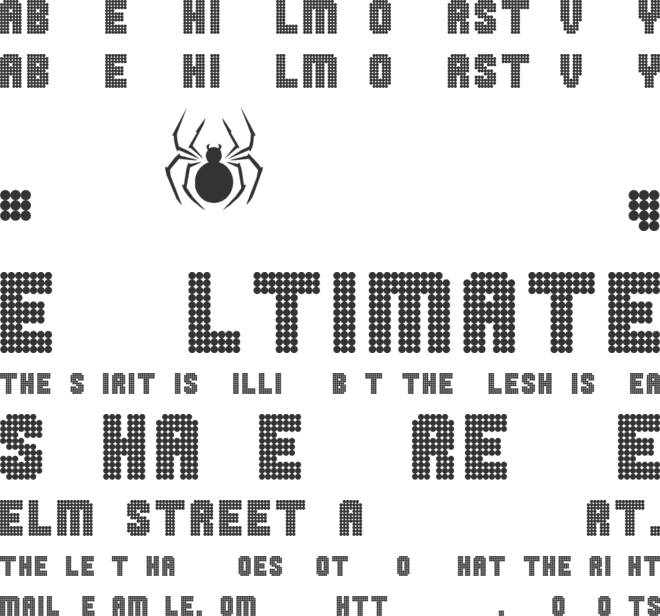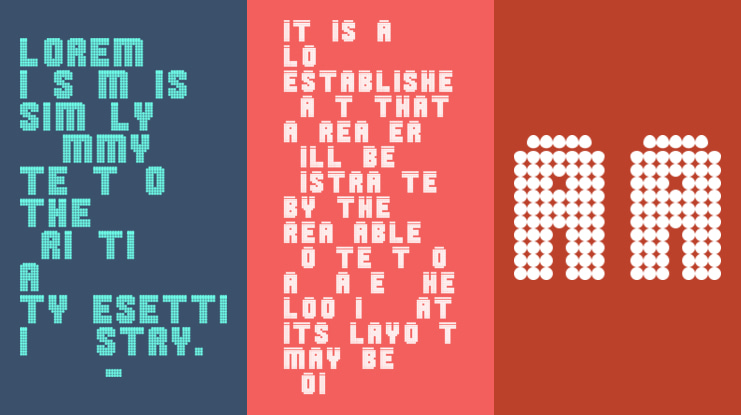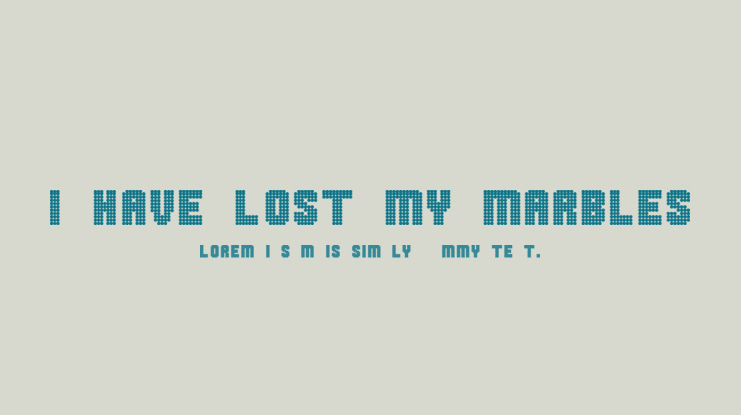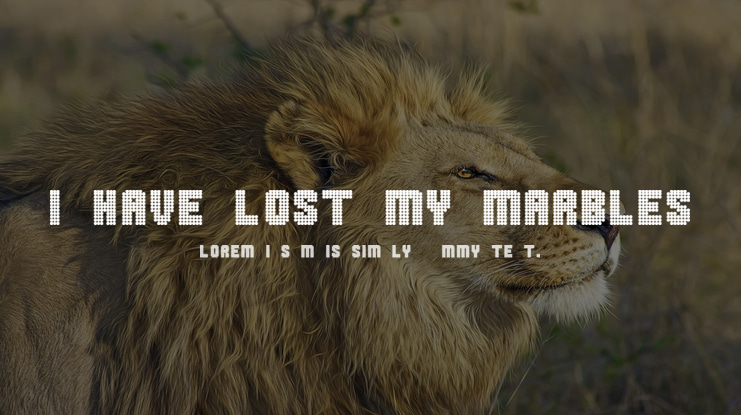
I HAVE LOST MY MARBLES Font
This is a 2018 variation of my first typefaces from 2011 where I started to use a grid sections of similar shaped images for the design process by turning off or on locations for the stems and crossbars I guess this was the precursor for my LEGOBRIX typeface this time circles (MARBLES) instead of bricks were used to the same effect.